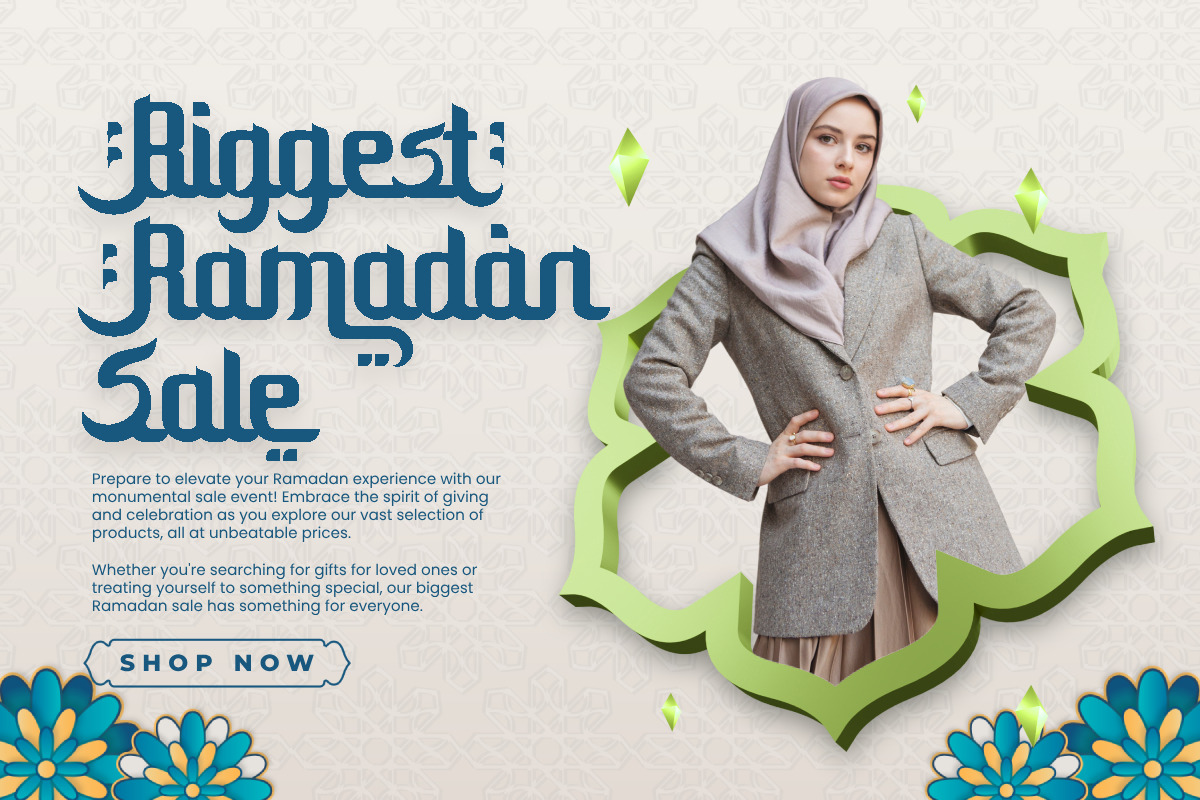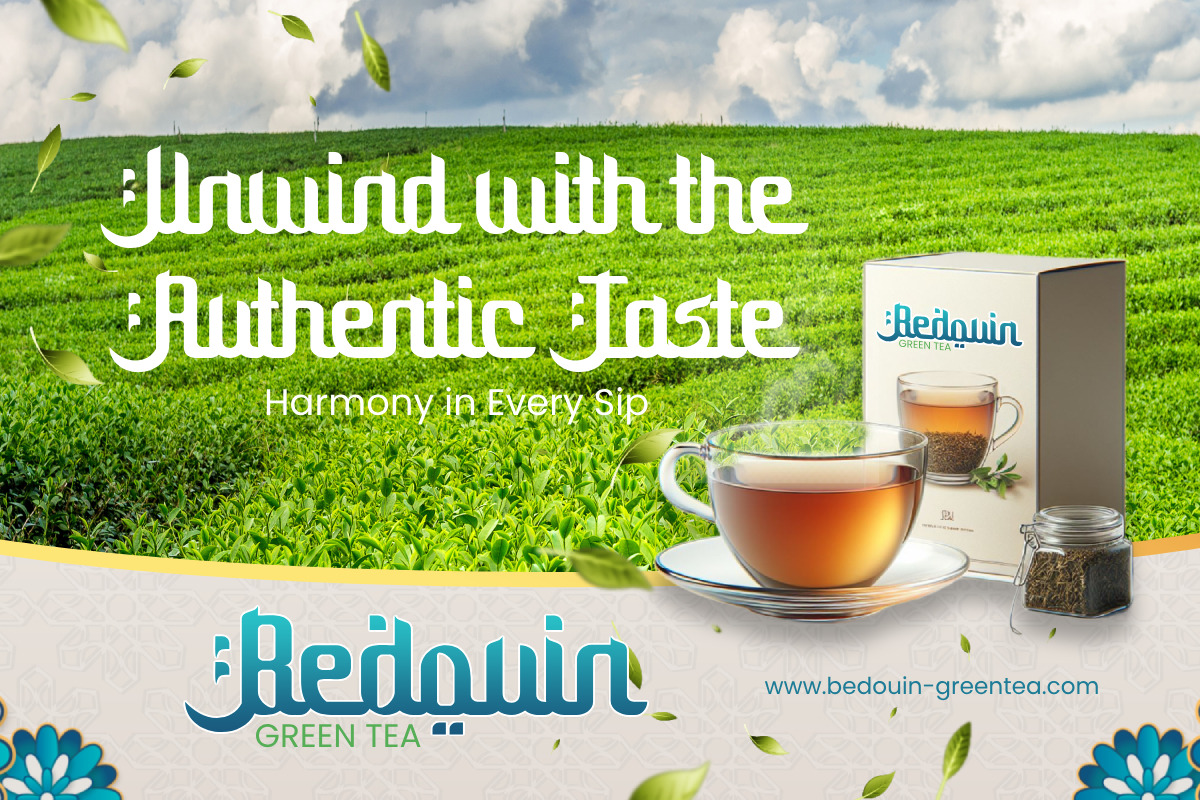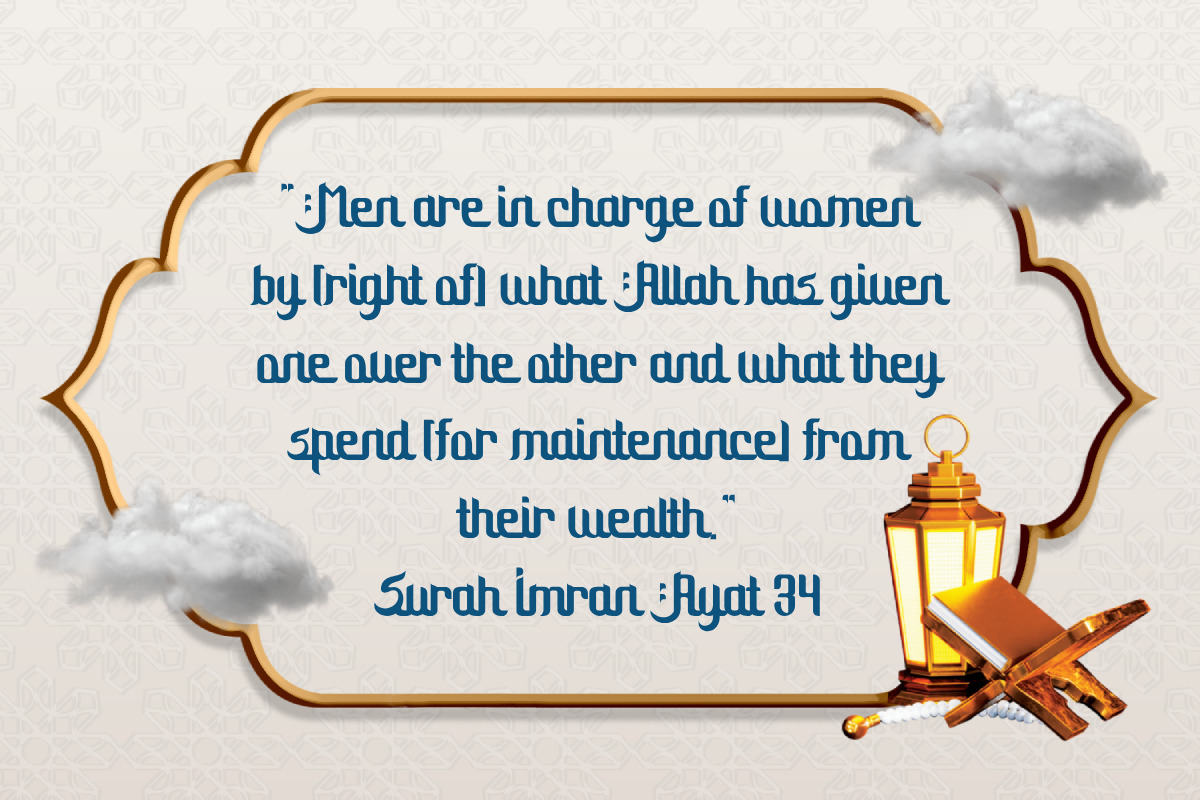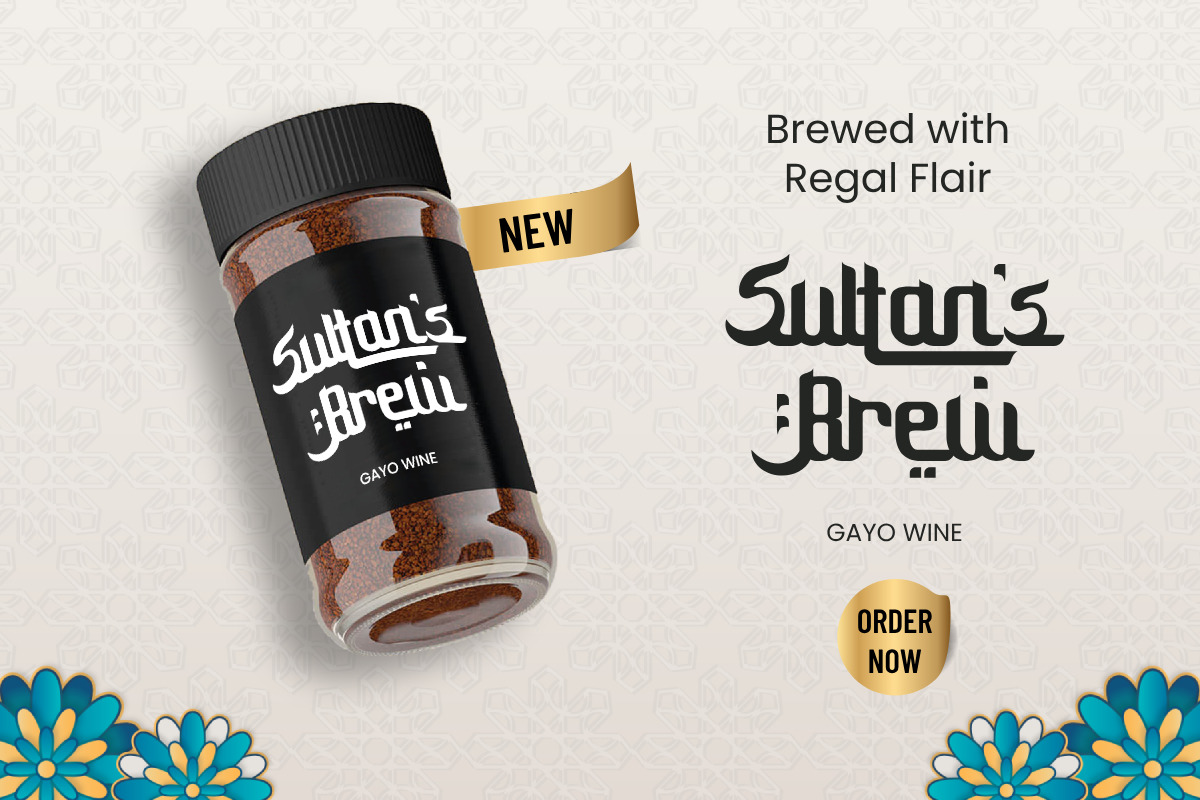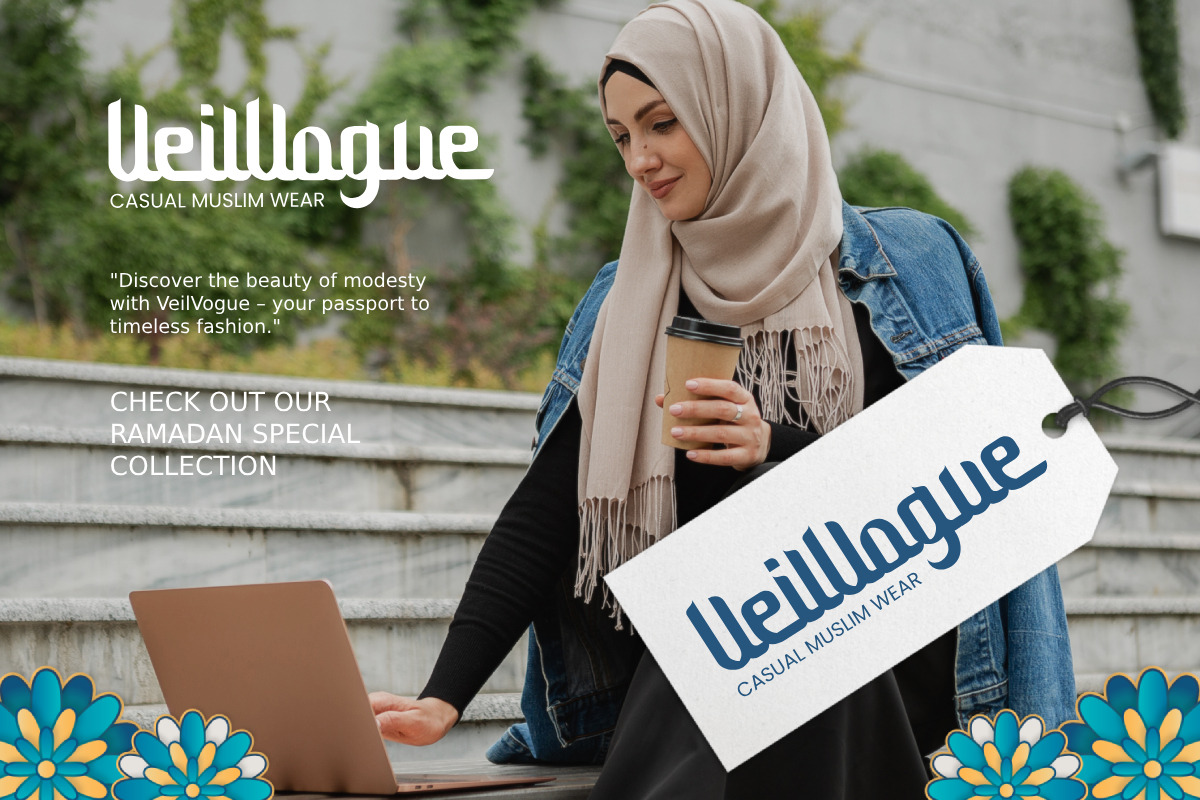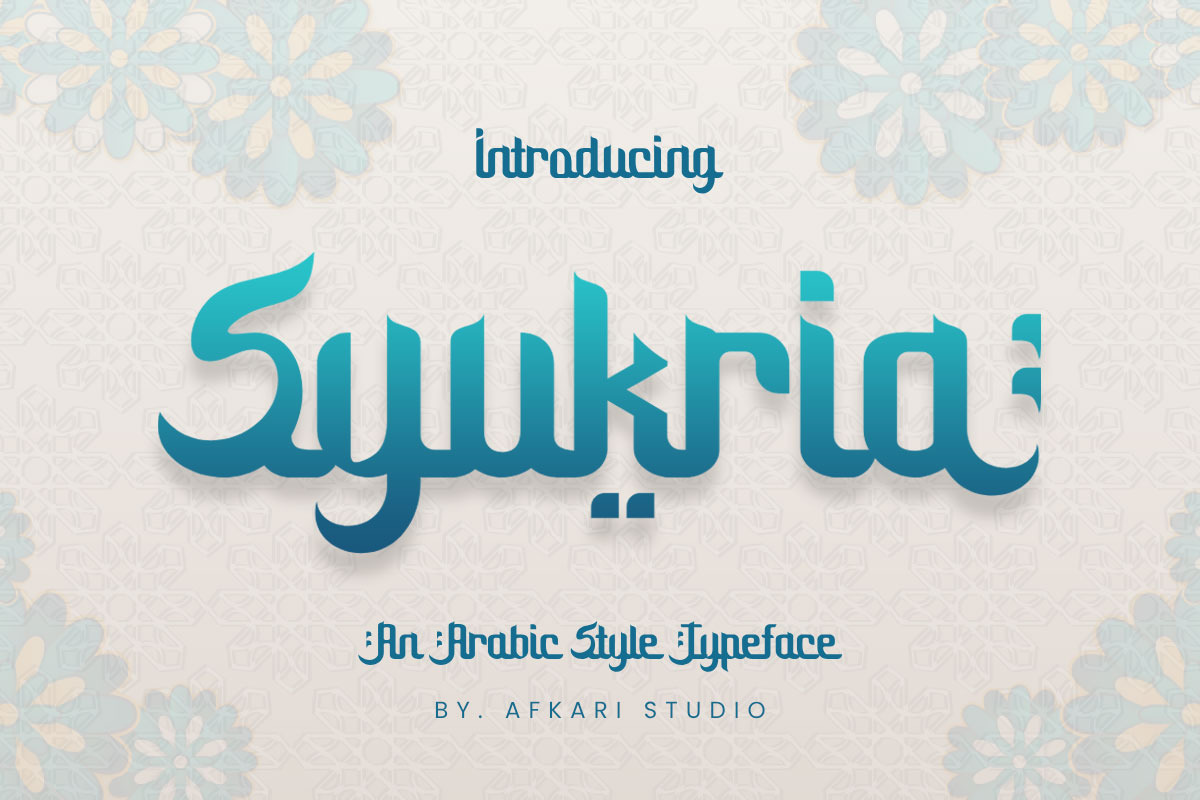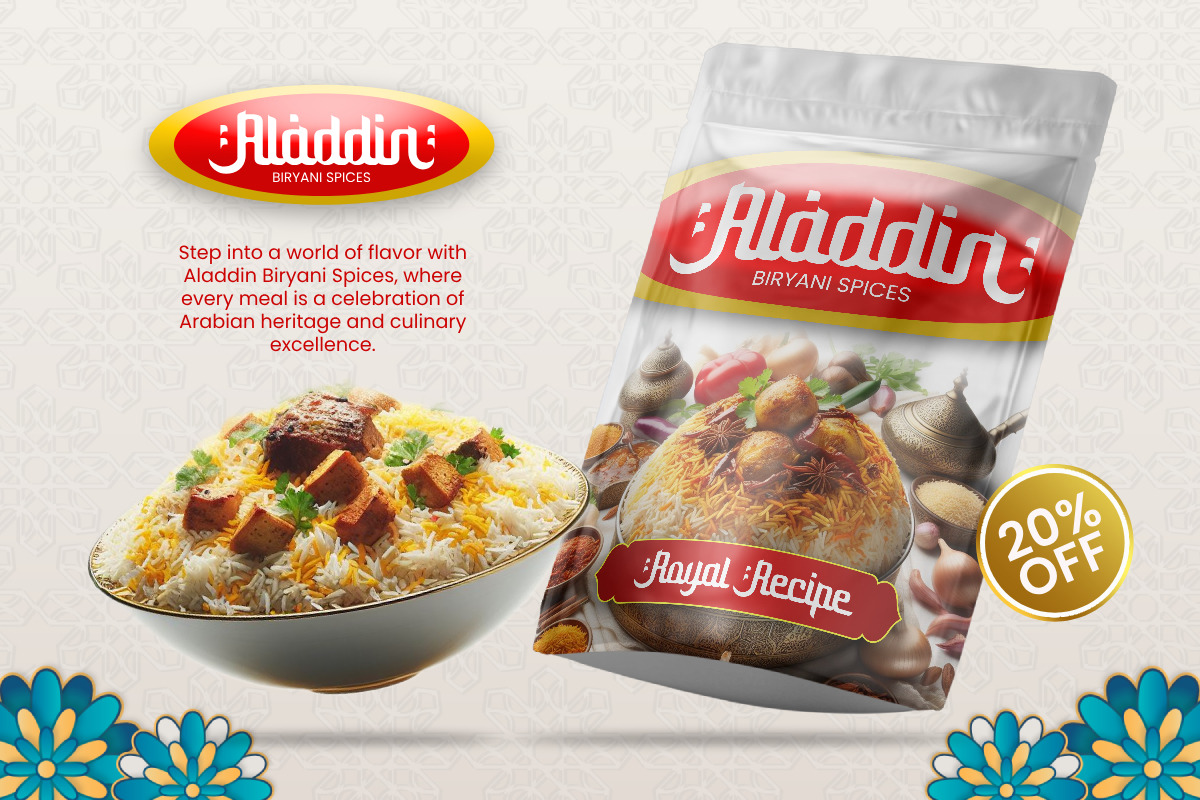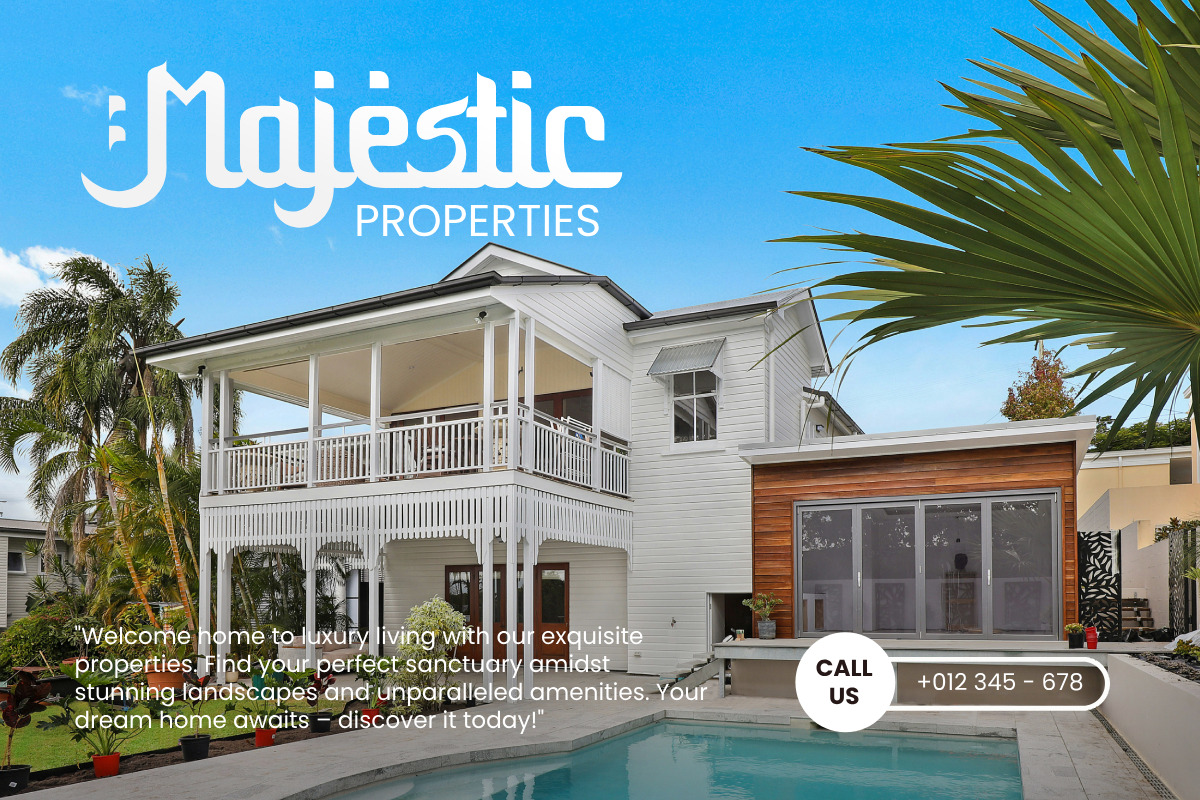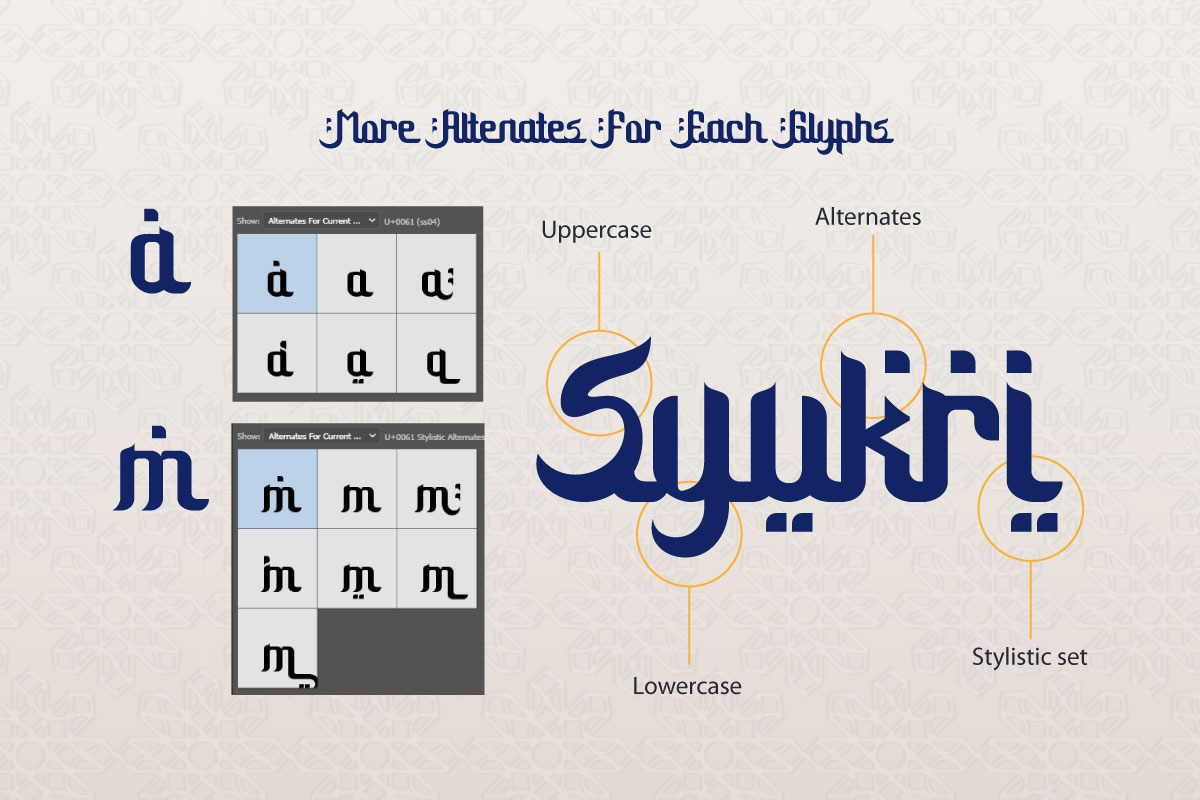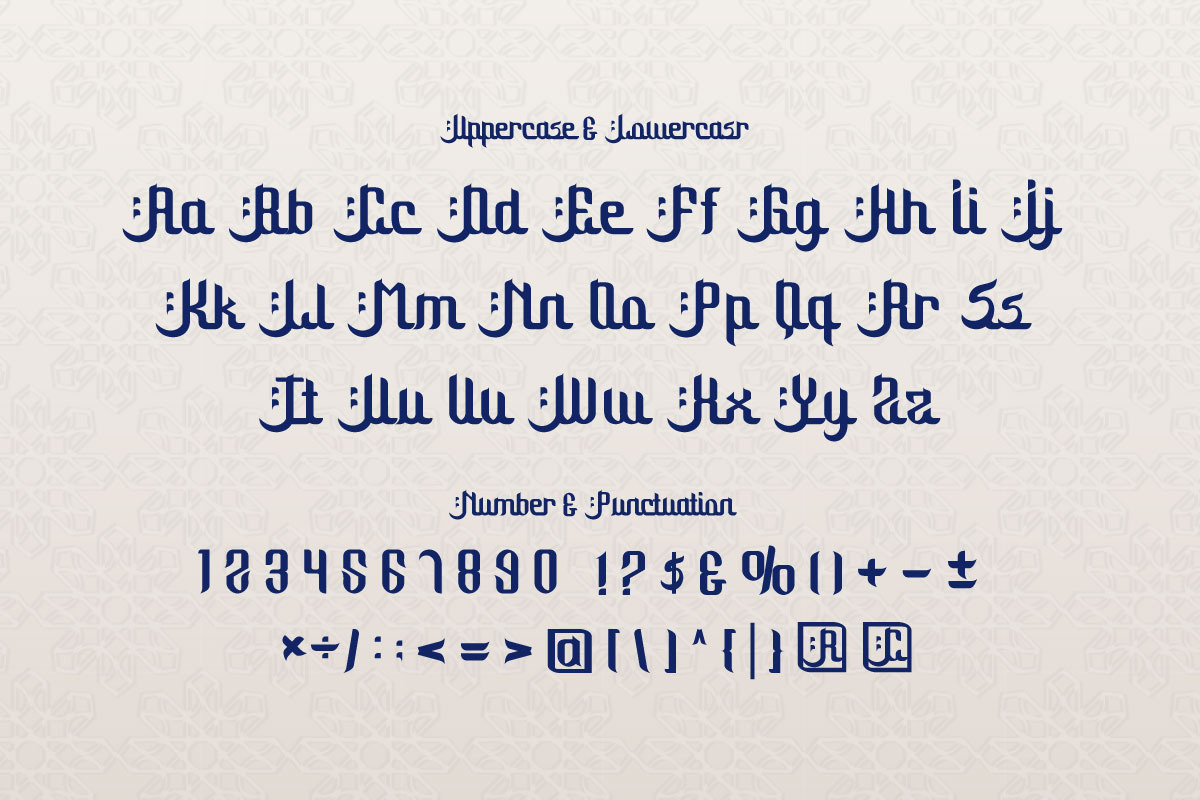
Syukria - An Arabic Style Typeface
Syukria is an elegant Arabic-style typeface designed to bring the beauty and richness of Arabic calligraphy into the digital realm. With graceful curves and intricate details, Syukria captures the essence of traditional Arabic script while offering modern readability and versatility. Whether used for headlines, body text, or decorative purposes.
Syukria Arabic Style Typeface adds a touch of sophistication and cultural flair to any design project. Its harmonious balance of tradition and innovation makes it ideal for conveying a sense of heritage and refinement in branding, publications, and artistic endeavors.
- Uppercase, lowercase, numbers, and punctuation
- Special alternates and ligatures for added visual richness
- Multilingual support, accommodating characters like ä, ö, ü, Ä, Ö, Ü, ß, ¿, and ¡
Syukria empowers designers to create captivating visuals that resonate with audiences across diverse platforms and contexts.